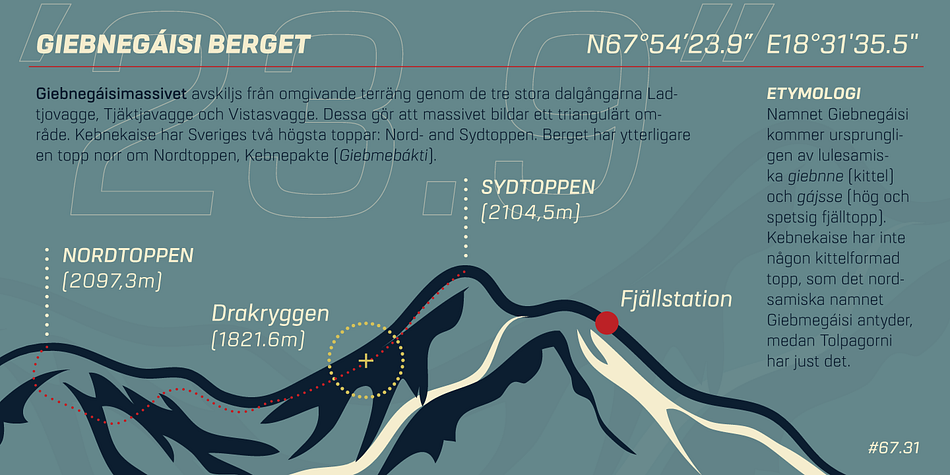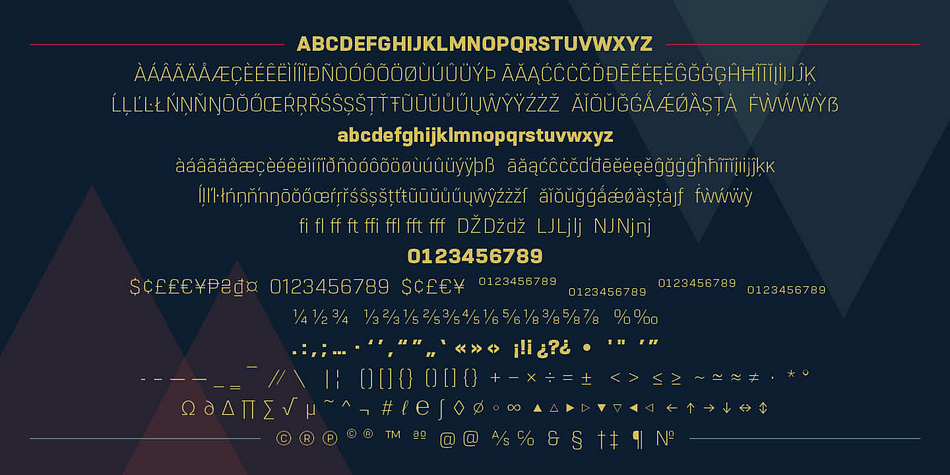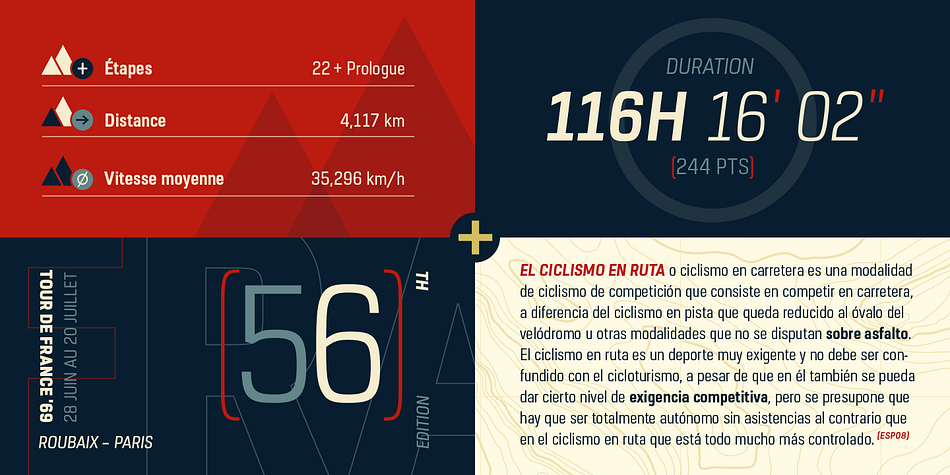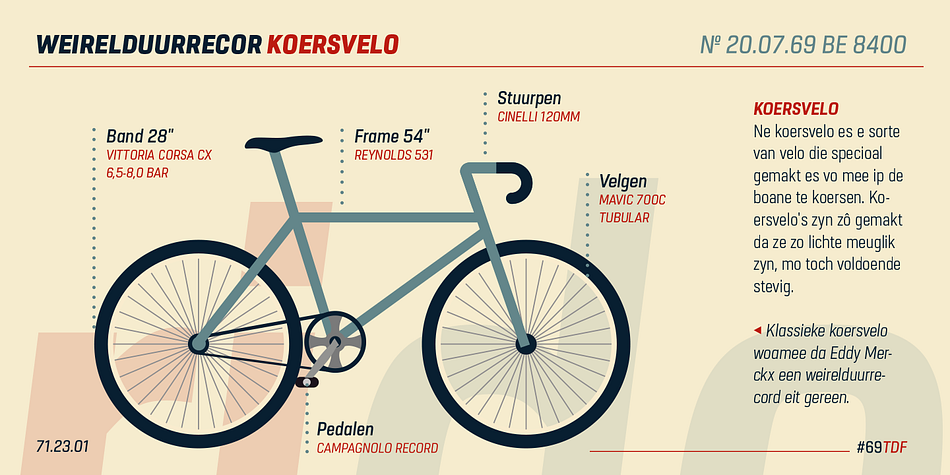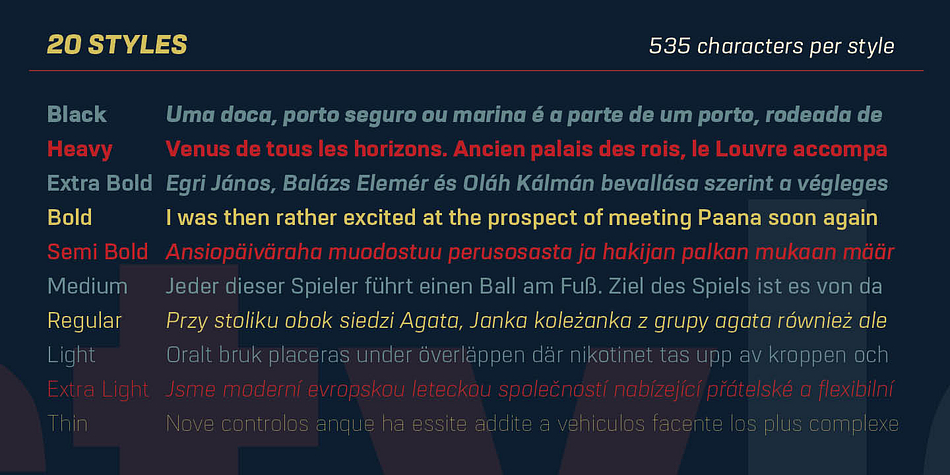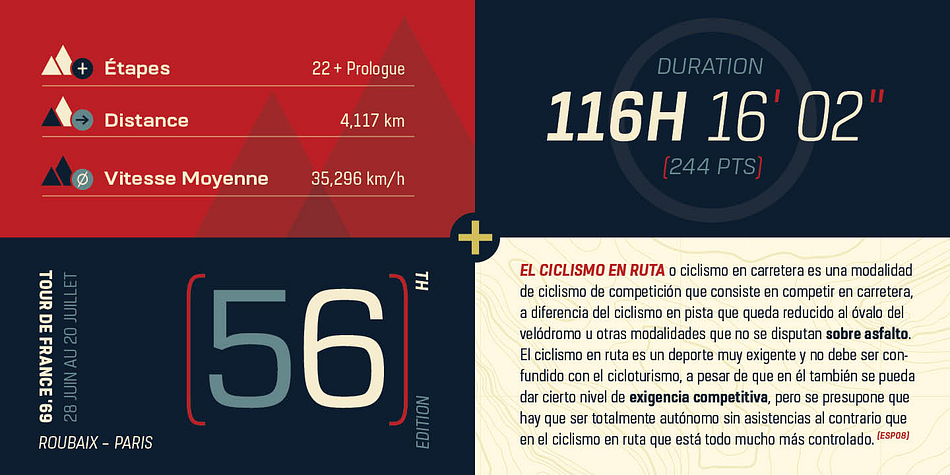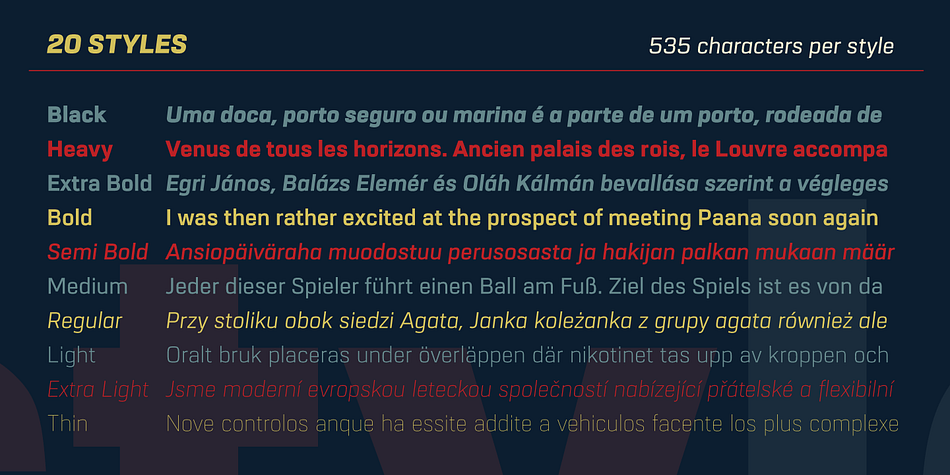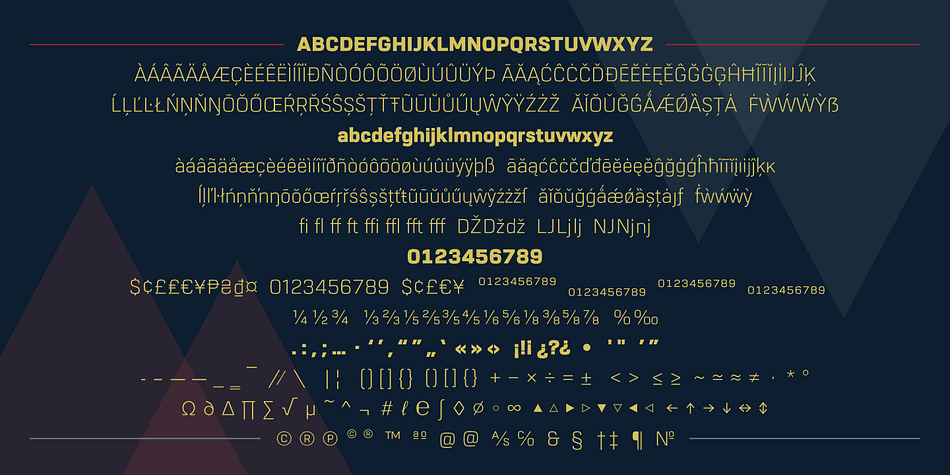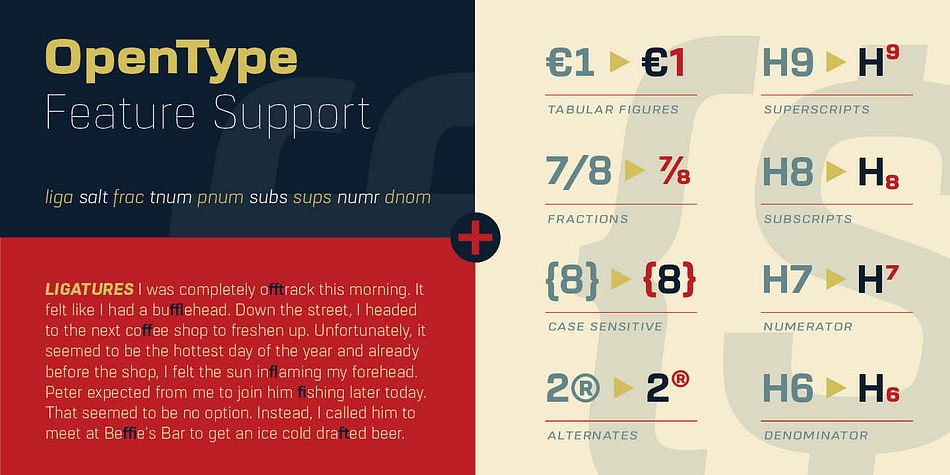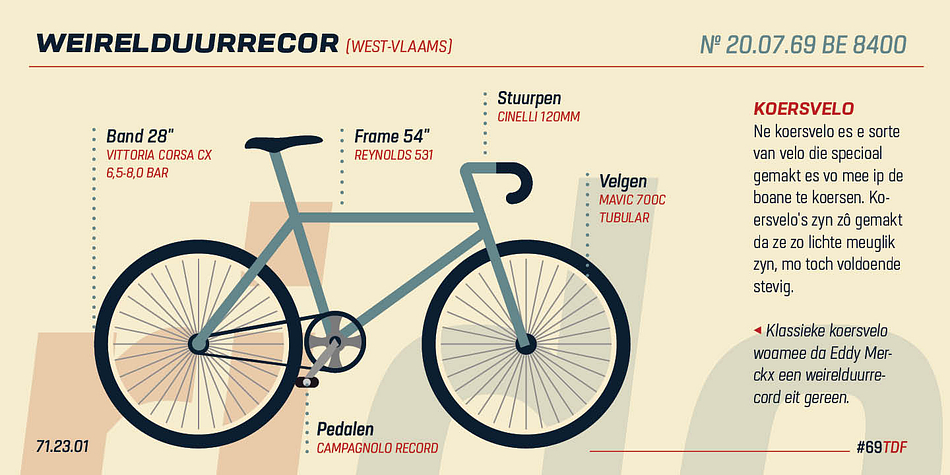
Designed by Jörn Oelsner, URW Dock is a multiple classification font collection published by URW Type Foundry.
URW Dock is a contemporary geometric type family inspired by the square sans typefaces of the 60s, notably the Eurostile, which is still used in countless applications to the present day. Designed to meet today’s requirements for a multifunctional font, this reinterpretation includes numerous enhancements and optimizations to ensure a professional use in today’s digital age. Including a wide range of styles, an extended character set and a careful composition, it has the potential to give brands, artworks, and interfaces a modern, professional and unique touch. Its high legibility and clear informative and technological appearance are perfectly suitable for infographics, signage and way-finding systems. And especially when embedded in app, gaming and infotainment software it will display its strength. While the upright styles communicate a clear, professional and informative message, the italics express a technological, dynamic and forward-thinking spirit. An extensive language support, several figure sets and a wide range of OpenType Features will make the URW Dock font family a perfectly suitable partner for a wide range of print, web and app projects.